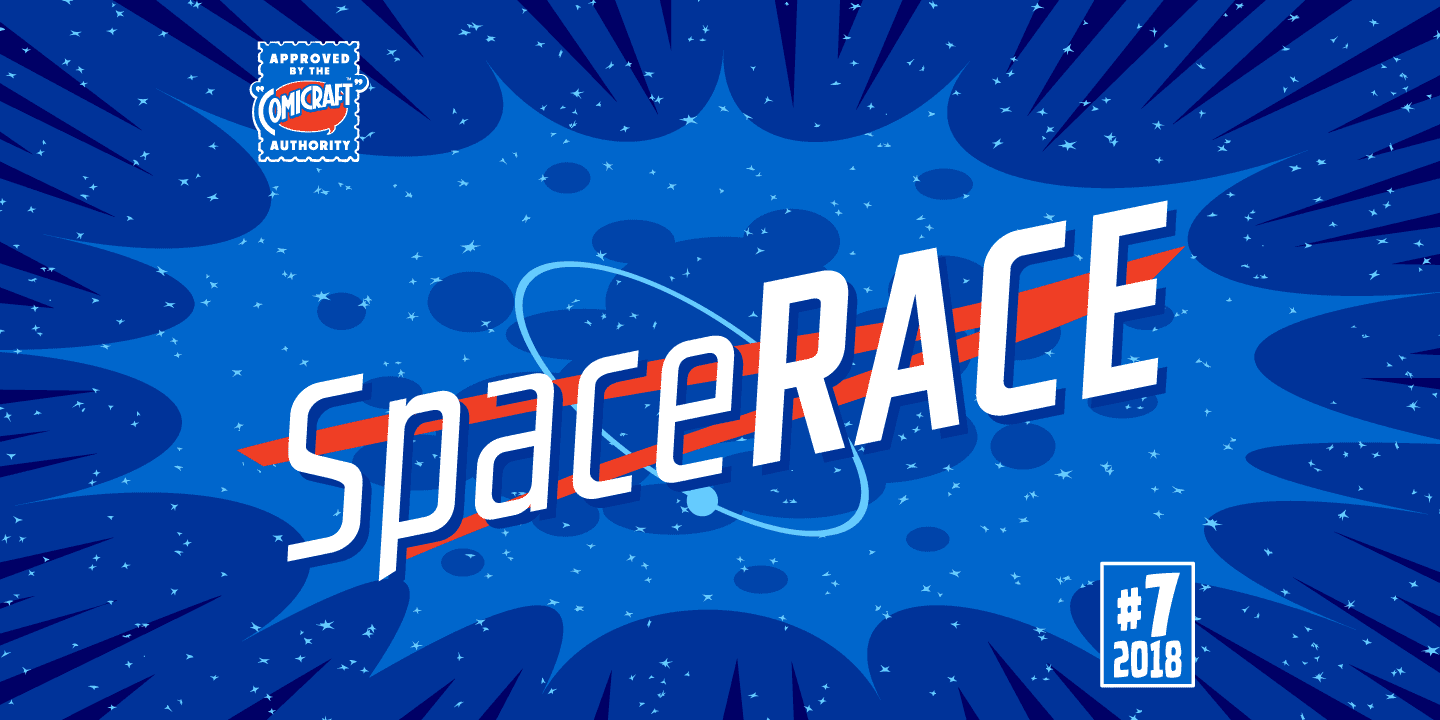
Launch your designs into the future with Space Race Font Free Download – a retro-futuristic typeface inspired by 1960s aerospace technology and vintage sci-fi. This bold display font combines atomic age aesthetics with space-age optimism, perfect for projects needing cosmic adventure with nostalgic charm.
Why Space Race Font Stands Out
Space Race Font Free Download delivers:
Authentic mid-century rocket typography
Perfect balance of retro and futuristic
Excellent readability at display sizes
Versatile space program applications
Space Race Font Free Download Technical Features:
Uppercase characters with technical precision
Numbers and mission-critical punctuation
Includes alternate "countdown" glyphs
Optimized for posters and packaging
Cosmic Applications:
Space-themed branding
Retro sci-fi designs
Tech startup visuals
Festival/event promotions
Vintage toy packaging
Design Tip: Pair with starburst elements and metallic finishes for authentic space age appeal!